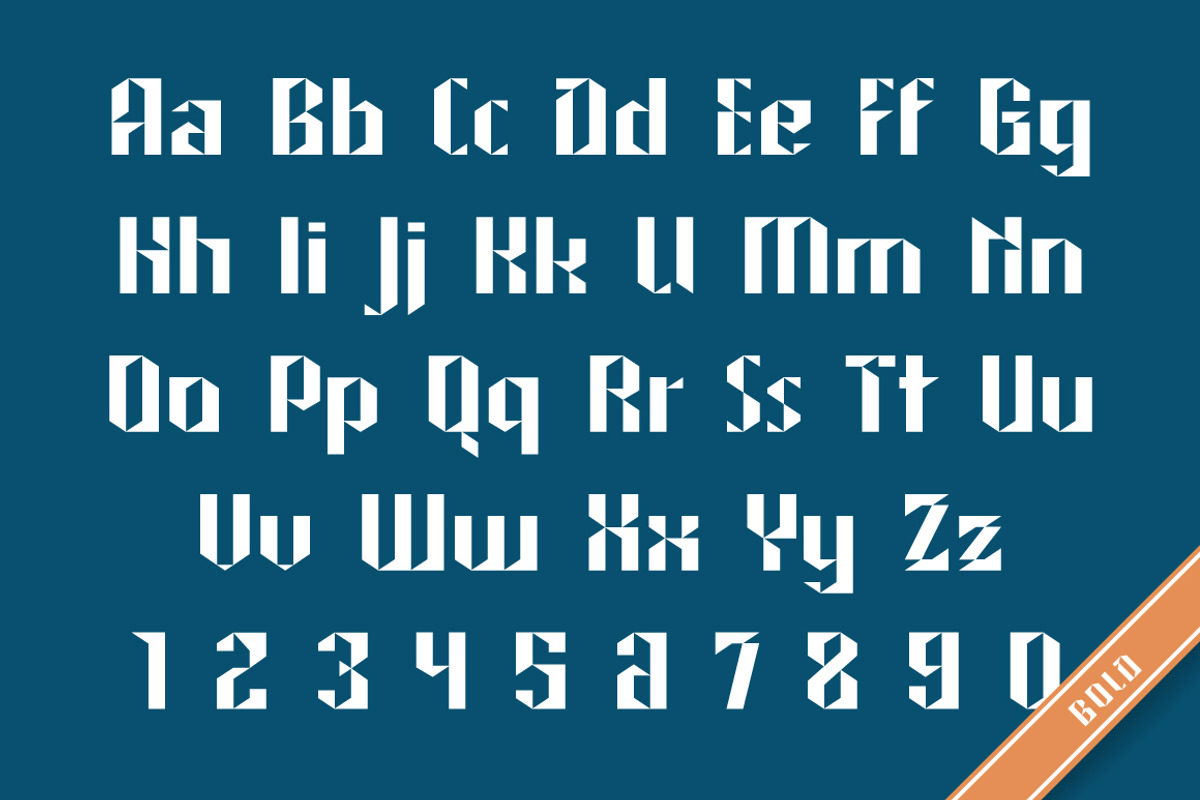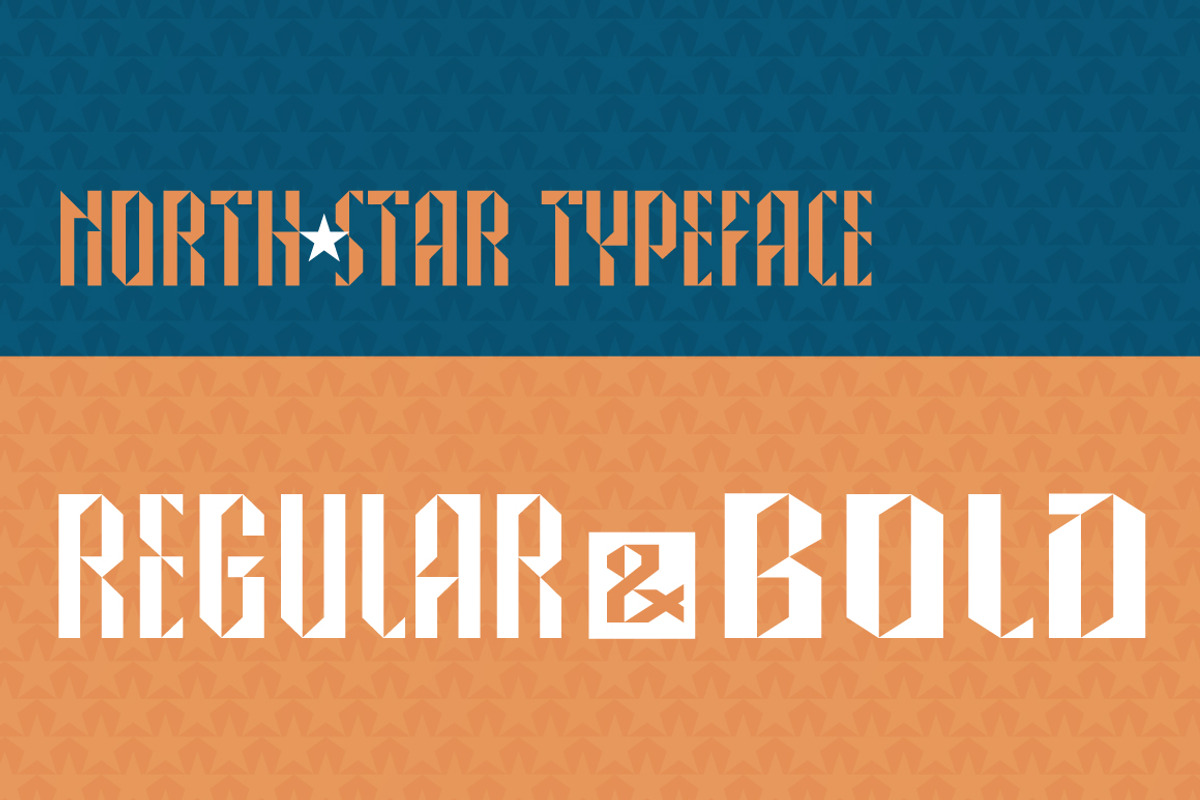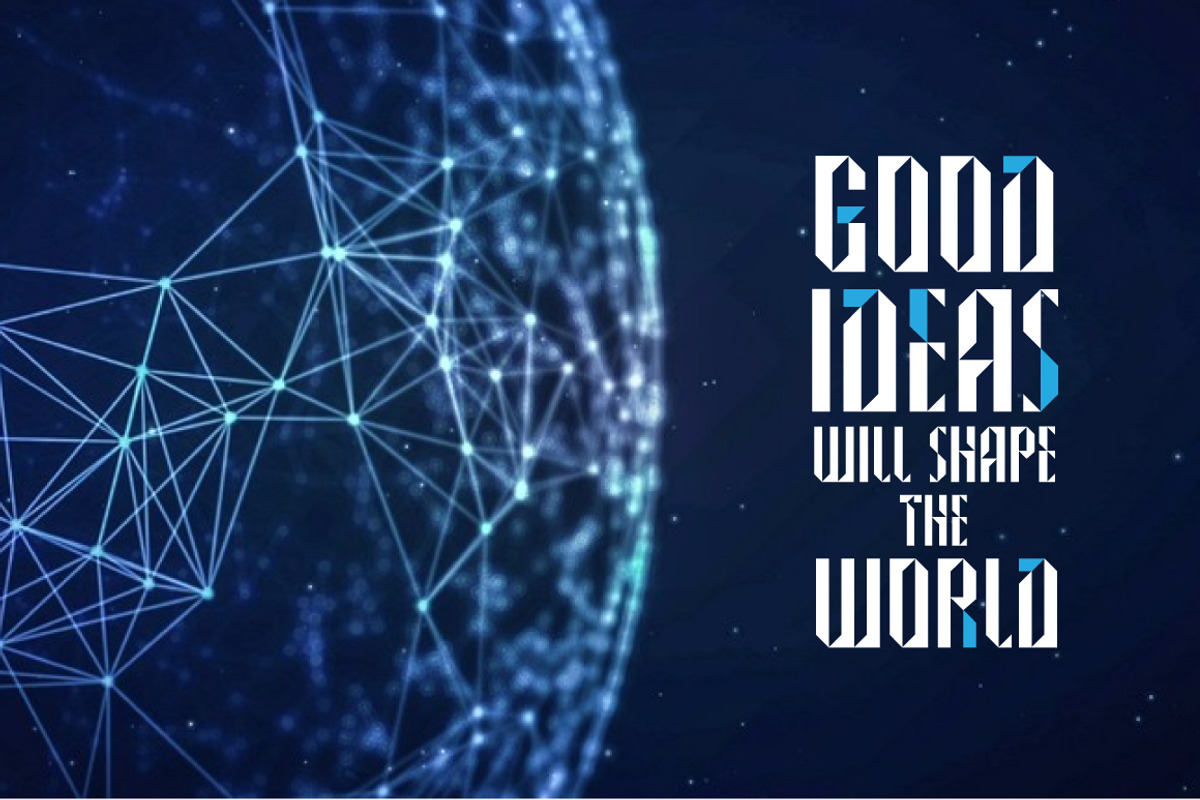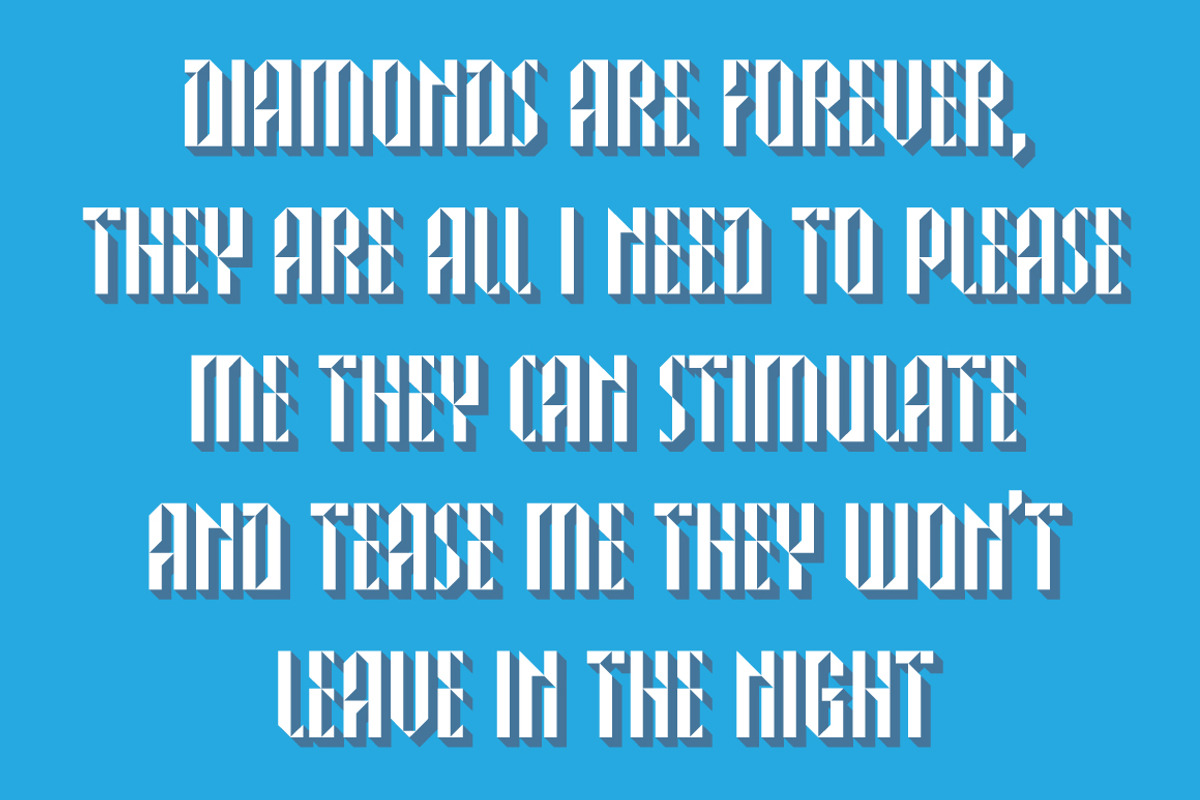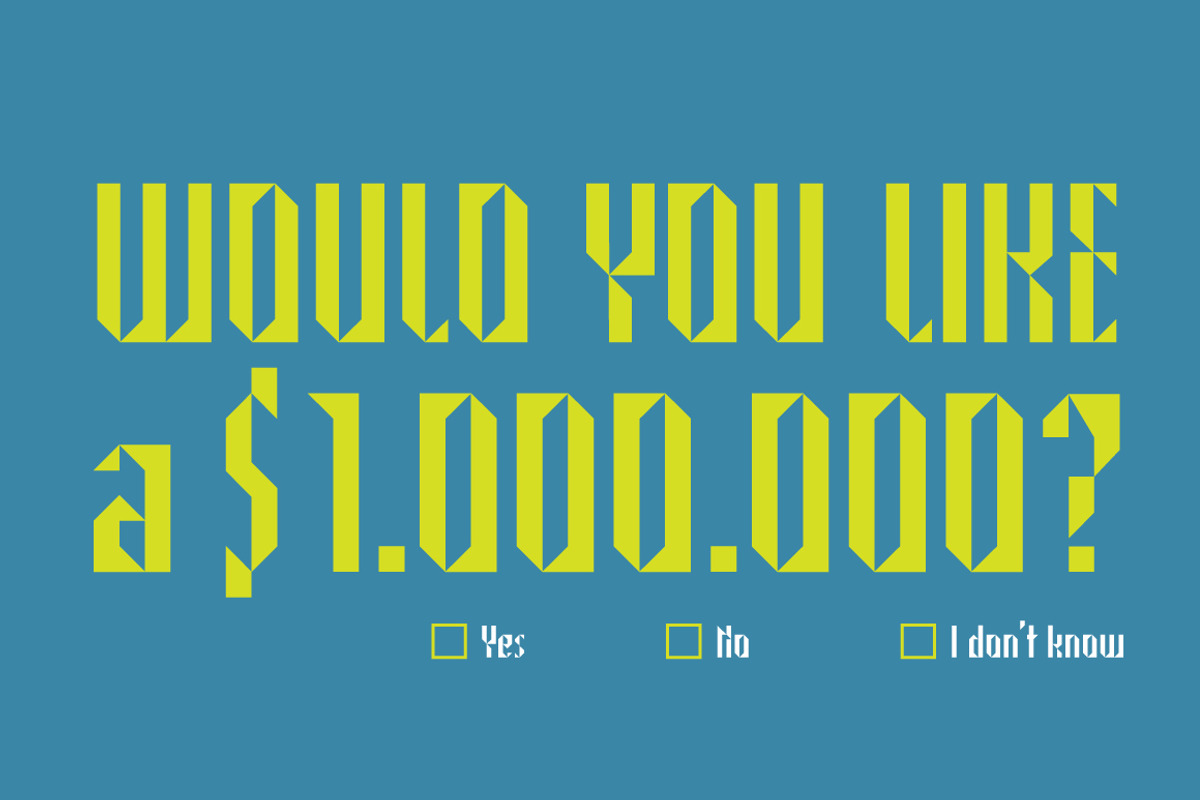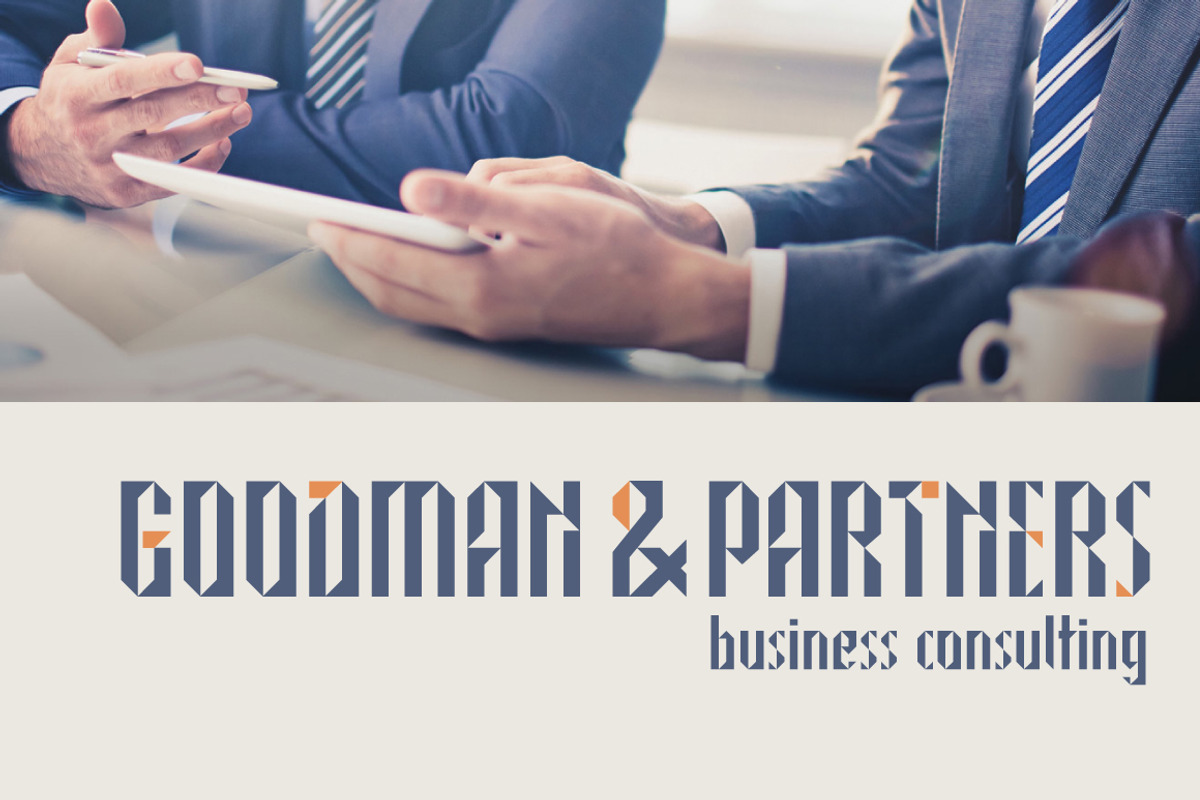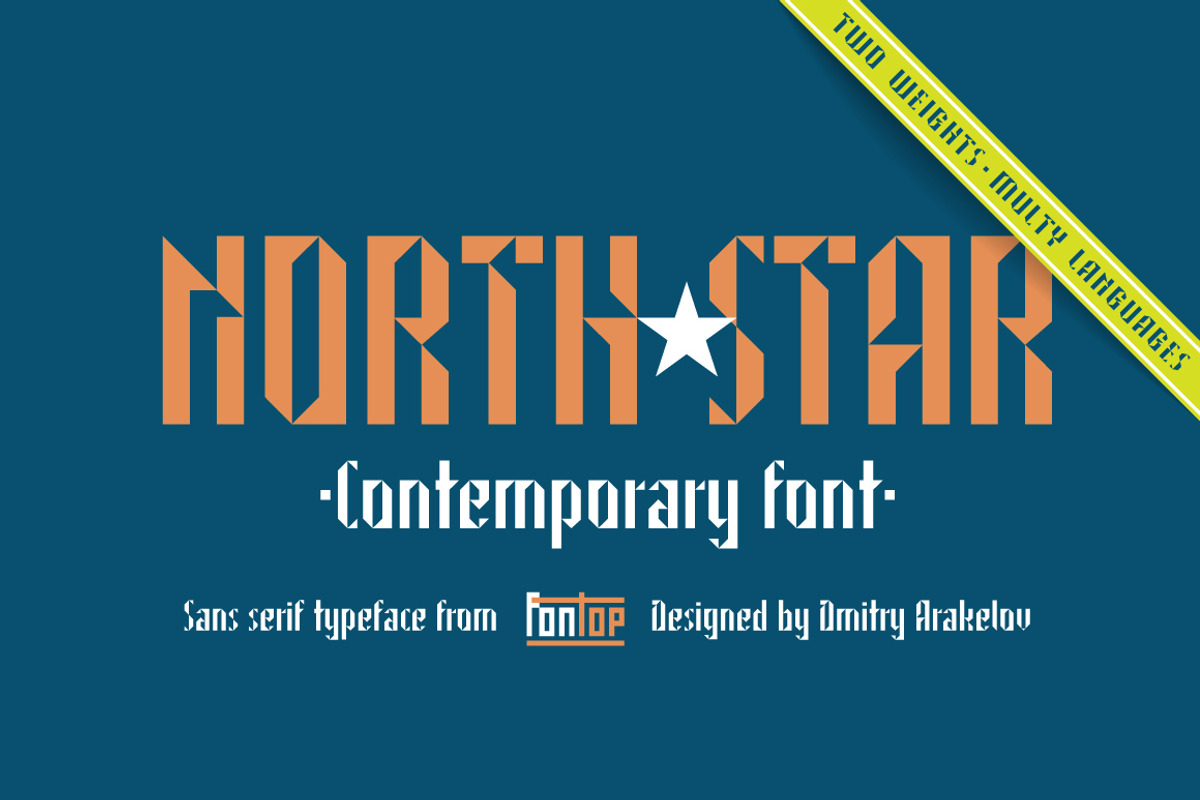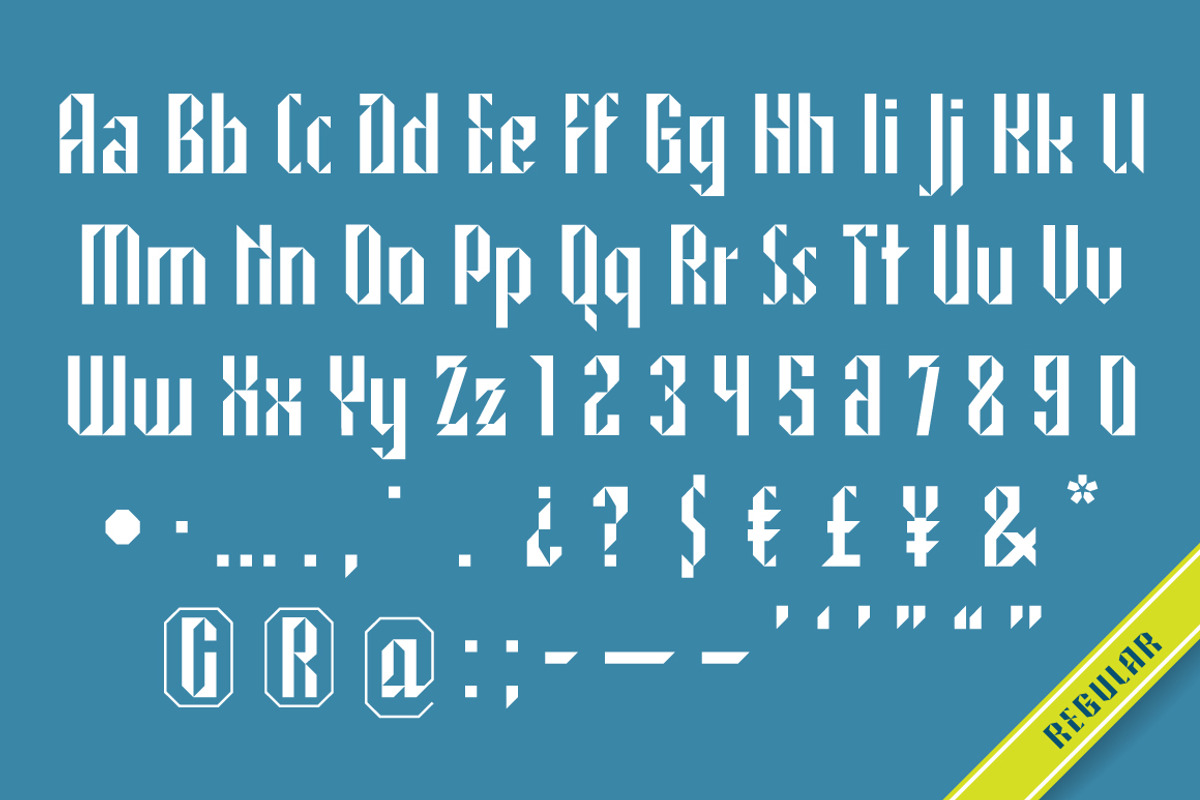
North Star sans serif typeface
Aaaaand here it comes! New sans serif typeface NORTH STAR. Pure geometric forms – this is what make these fonts look so special. Ad materials, logos, posters and so on so on. The font comes as Regular and Bold, both are Latin multilingual and have uppercase letters, lowercase letters, numbers and basic punctuations. Thanks to its geometrics shapes you can also make an additional effect with combining different colors in one letter and adding shades. It can be done easily in Adobe Illustrator after you convert your fonts into outlines.
- The font comes as Regular and Bold, both are Latin multilingual and have uppercase letters, lowercase letters, numbers and basic punctuation